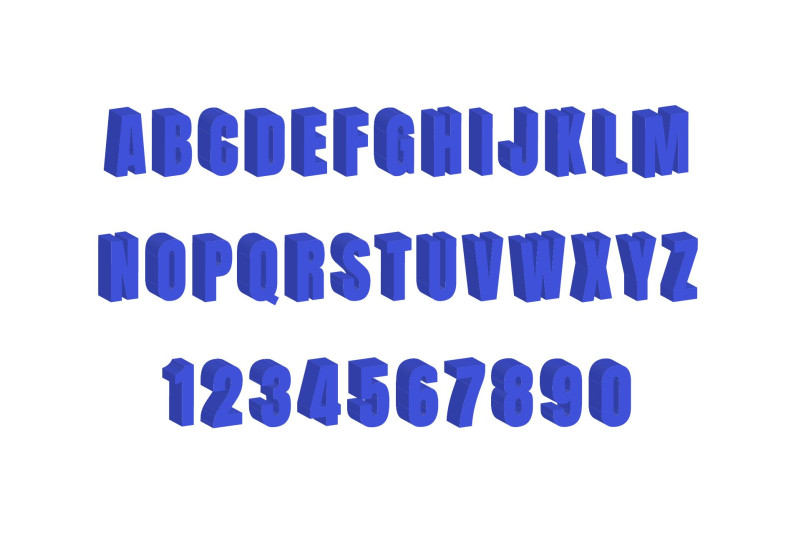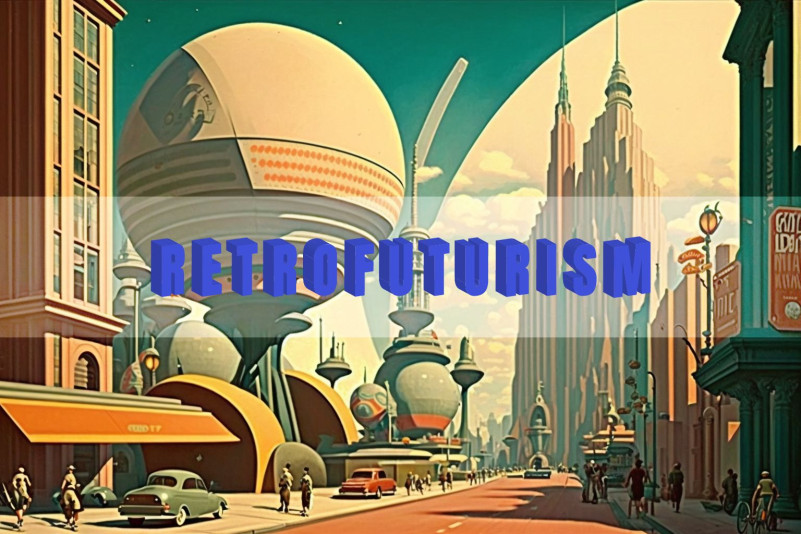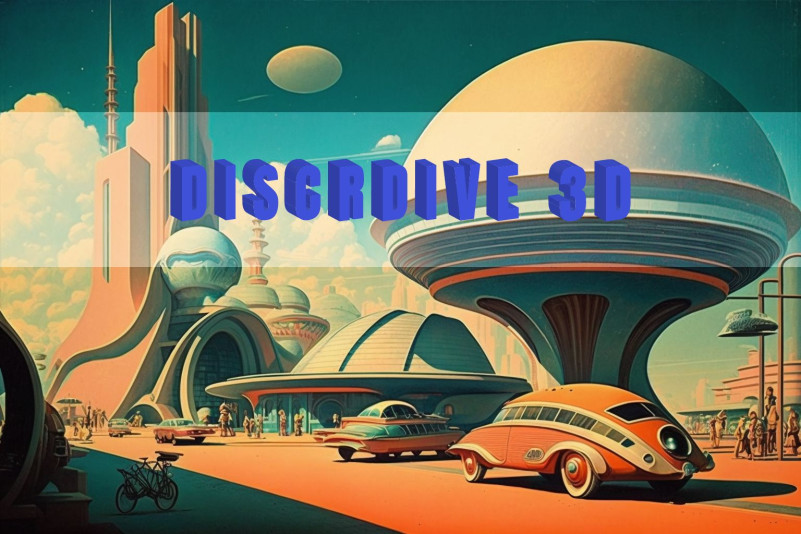
Introducing Discrdive 3D Font – the perfect font for the Discord community! This font is dedicated to bringing your Discord messages to life with its sleek and modern design.